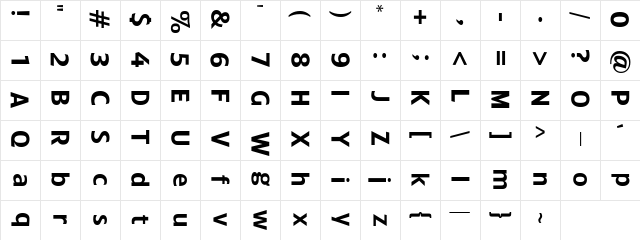
FontRight Regular
Design Context for FontRight
FontRight is a composed and adaptable typeface that performs quietly and consistently across a wide range of design contexts.
Pro Tip: Use FontRight in both headline and body roles to test its range before committing to a single application.